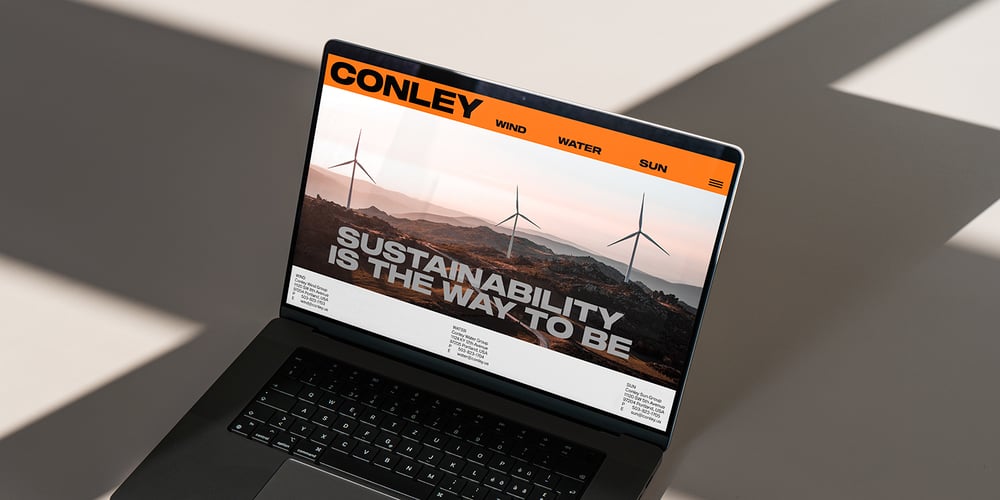
Sequel 100 Black
Sequel 100 Black font
Sequel 100 Black Font Family was designed by Oliver Jeschke and published by OGJ Type. Sequel 100 Black contains 18 styles and family package options. Sequel 100 Black is a neogrotesque font family for forceful headlines, confident titles, and striking posters. An extension of Sequel Sans and primarily designed for display use, it has wider proportions than the original typeface. It also sports a larger x-height that allows for maximum impact on the page. And Sequel 100 Black ain’t no lightweight: it’s the boldest member of the Sequel superfamily, with weights starting at 45 (a sturdy medium style) and going all the way up to an ultra-black 115. Use Sequel 100 Black whenever you want to combine a touch of cool mid-century modernism with the scintillating tension of maximum ink use and minimal whitespace.